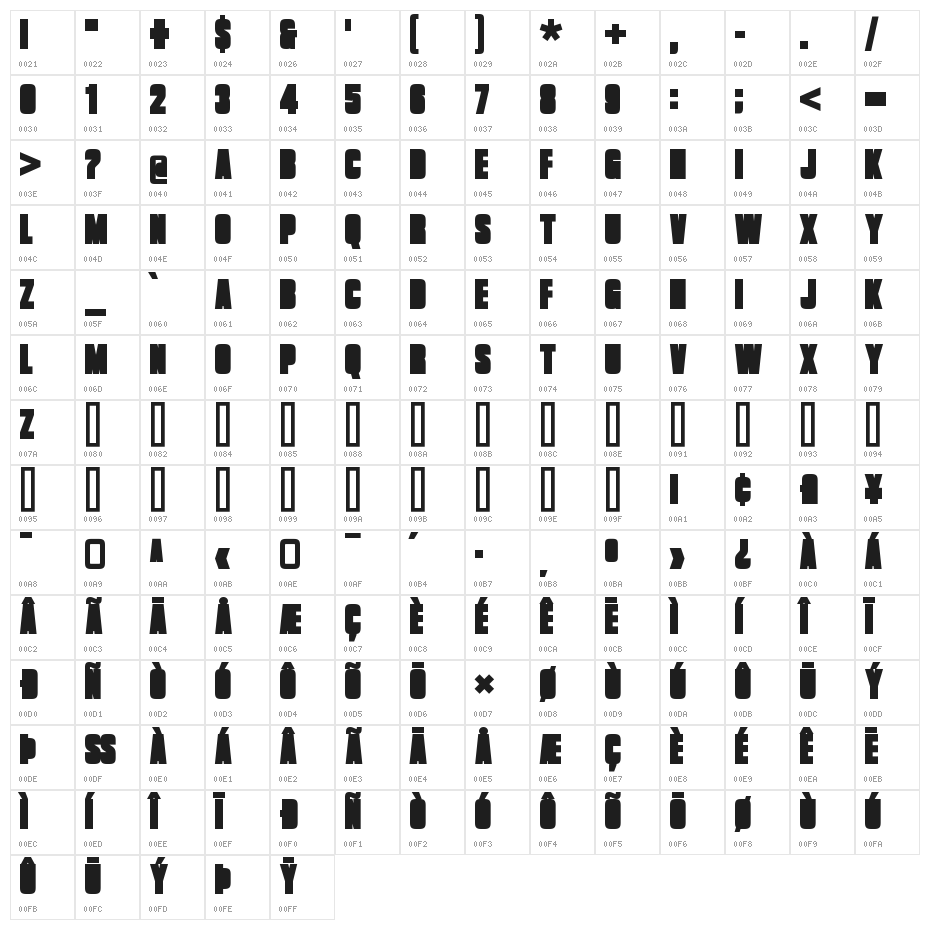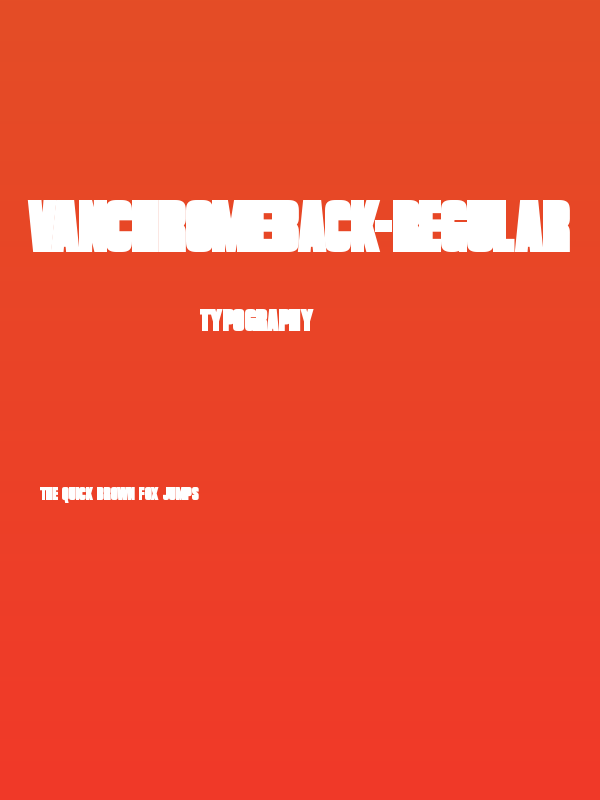
VanchromeBack-Regular Font
VanchromeBack-Regular Description
This font features a bold and impactful design with thick, blocky characters that create a strong visual presence. The uppercase letters are uniform in height, with a consistent width that gives the font a monolithic appearance. The lowercase letters maintain the same boldness, ensuring readability while retaining the font's distinctive style. The numbers and special characters are equally robust, making them stand out in any design. This font's geometric shapes and solid structure make it ideal for attention-grabbing headlines and titles.
| Proposed Projects | Ideal for posters, banners, logos, and any design requiring a bold statement. |